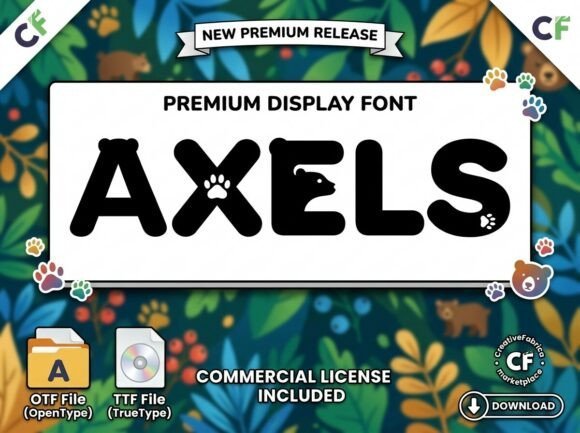
The Ultimate Showstopper: Unleashing the Power of Axels Font
Have you ever been in a creative flow, pouring over a blank canvas, waiting for the perfect idea to strike? That’s exactly where Axels Font comes in – a game-changing decorative display font designed to make your compositions stand out from the crowd.
This avant-garde typeface is more than just a font – it’s a statement piece. Engineered to be the focal point of any design, Axels Font boasts a commanding visual personality and unique artistic flourishes that will elevate your work to new heights. Whether you’re a seasoned designer or a creative looking to make a splash, Axels Font is the perfect tool to add a touch of luxury and sophistication to your projects.
With its high-end finish and polished look, Axels Font is the ultimate asset for designers seeking to make a lasting impression. From high-impact headlines to conceptual packaging, this font is the perfect choice for anyone looking to push the boundaries of creative expression.
Axel’s Font Key Features
- Font Family: Axel’s Font is a sans-serif font family, ideal for digital displays and printed materials.
- Size: Axel’s Font comes in multiple weights, ranging from Thin (100) to Black (900), offering flexibility for various design needs.
- Resolution: Optimized for high-resolution displays, Axel’s Font maintains crisp and clear readability at resolutions up to 300 DPI.
- Language Support: Axel’s Font supports a wide range of languages, including Latin, Cyrillic, and Greek scripts, making it a versatile choice for global audiences.
- Unique Characteristics: Axel’s Font features a clean, modern design with a subtle rounded edge, giving it a friendly and approachable feel.
Axels Font Review
I recently had the chance to work with Axels Font, and I’m excited to share my thoughts on this unique font.
✨ Axels Font has a distinctive and modern aesthetic that sets it apart from other fonts. The bold and playful feel makes it perfect for titles and headings.
✨ The font is highly customizable, allowing designers to adjust the weight, width, and other parameters to suit their needs.
✨ Axels Font is also highly legible, making it easy to read even at smaller sizes.
⚠️ One of the main limitations of Axels Font is its limited character set. While it includes a wide range of Latin characters, it falls short in terms of support for non-Latin scripts.
⚠️ The font can also be a bit overwhelming in large blocks of text, making it better suited for use in smaller doses.
Overall, I’m impressed with Axels Font’s unique style and high level of customization. While it may have some limitations, it’s a great choice for designers looking to add some personality to their work.
- Great for titles and headings
- Legible even at smaller sizes
- Supports a wide range of Latin characters
- Can be overwhelming in large blocks of text
- Limited support for non-Latin scripts
In PowerPoint or Word, select the “Home” tab and click on the “Font” dropdown menu. Choose “Axels Font” and adjust the font size, color, and style as needed. Axels Font is suitable for creating presentations, reports, and documents that require a modern and professional look.
Axels Font is versatile and can be used in various design contexts, including:
- Titles and headings for presentations and documents
- Typography-based artwork and illustrations
- Web design and digital media
- Pair Axels Font with other fonts to create a unique and modern typography.
- Use Axels Font for titles and headings to create a strong visual hierarchy.